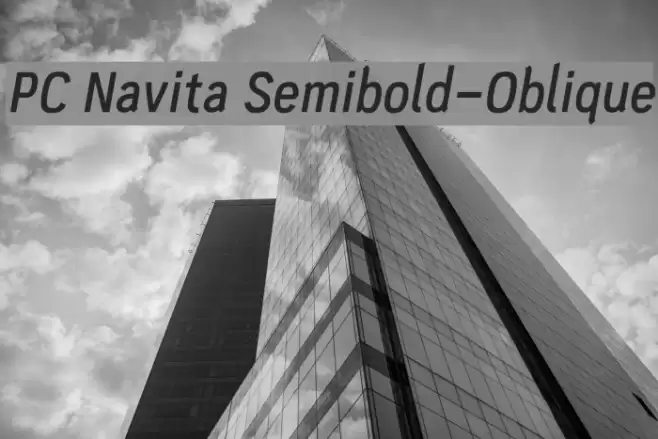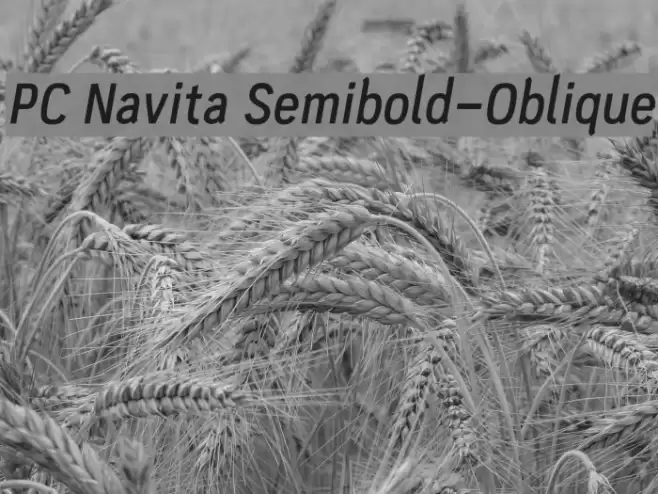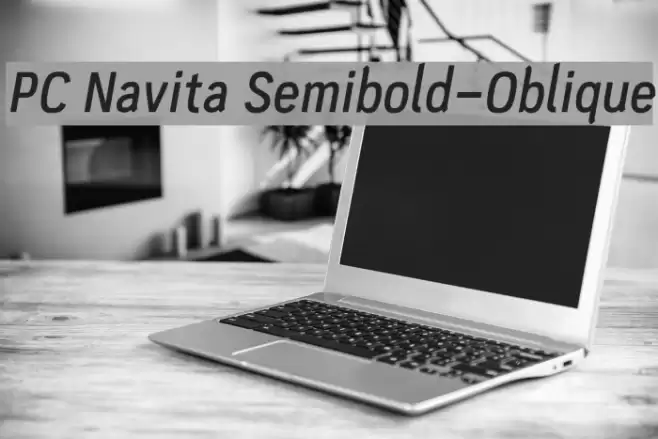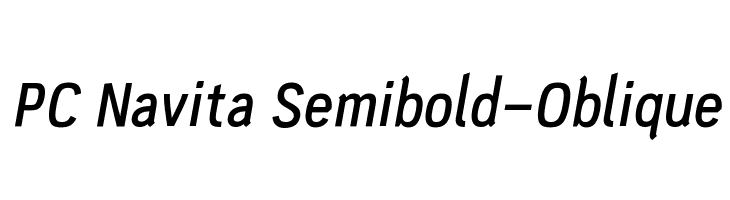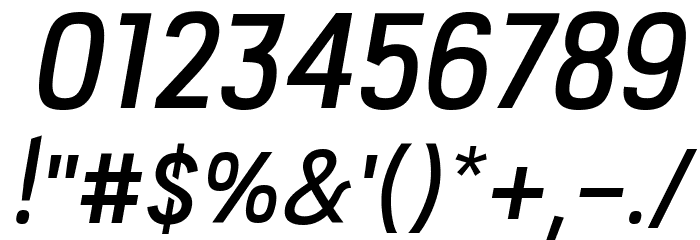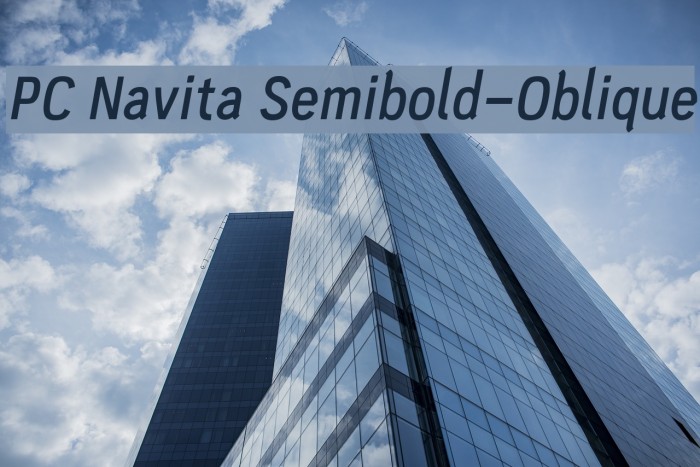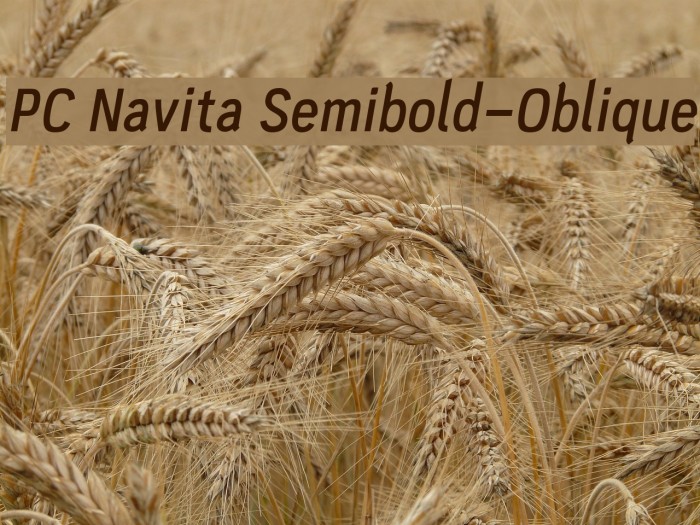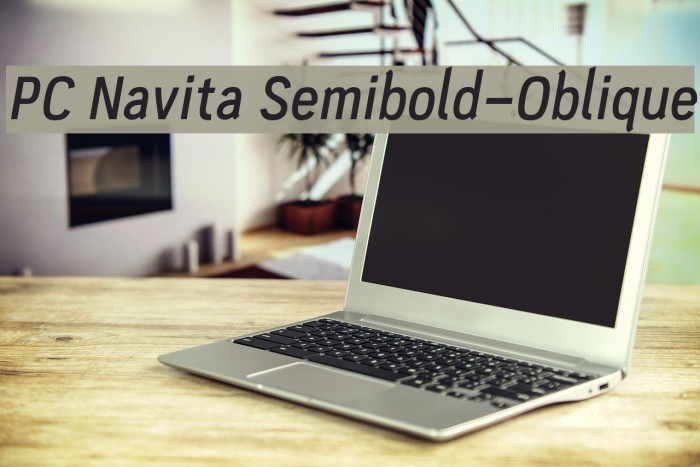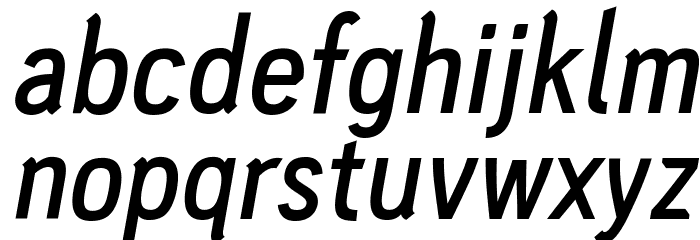
PC Navita Semibold-Oblique Font
PC Navita Semibold-Oblique Description
This font features a sleek and modern design with a semi-bold weight and oblique style, giving it a dynamic and forward-leaning appearance. The characters are well-defined with a slight slant, enhancing readability while adding a touch of elegance. The uppercase and lowercase letters maintain a consistent style, with smooth curves and sharp edges that create a harmonious balance. The numerals are clear and distinct, making them suitable for various applications. Special characters are included, offering versatility for different design needs.
A modern, semi-bold oblique font with sleek, dynamic characters from Uncategorized fonts.
- Proposed Projects: Ideal for branding, advertising, and editorial design projects that require a modern and dynamic typeface.
- Use Case: Headlines, Logos, Branding